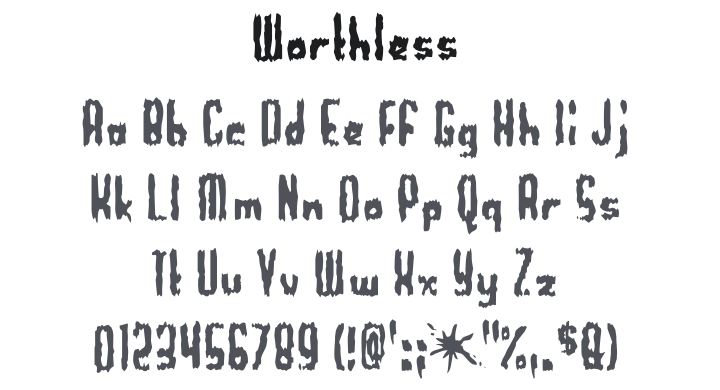
Worthless Font
About Worthless
Worthless is a bold, horror display typeface where gothic letterforms are heavily eroded and crumbling — jagged, deteriorating edges make each character look like it was carved into decaying wood or stone centuries ago and left to rot. The underlying structure gives it dark, medieval authority beneath all the decay. Perfect for horror game titles, gothic branding, Halloween designs, metal band logos, and any headline needing ancient, cursed atmosphere.